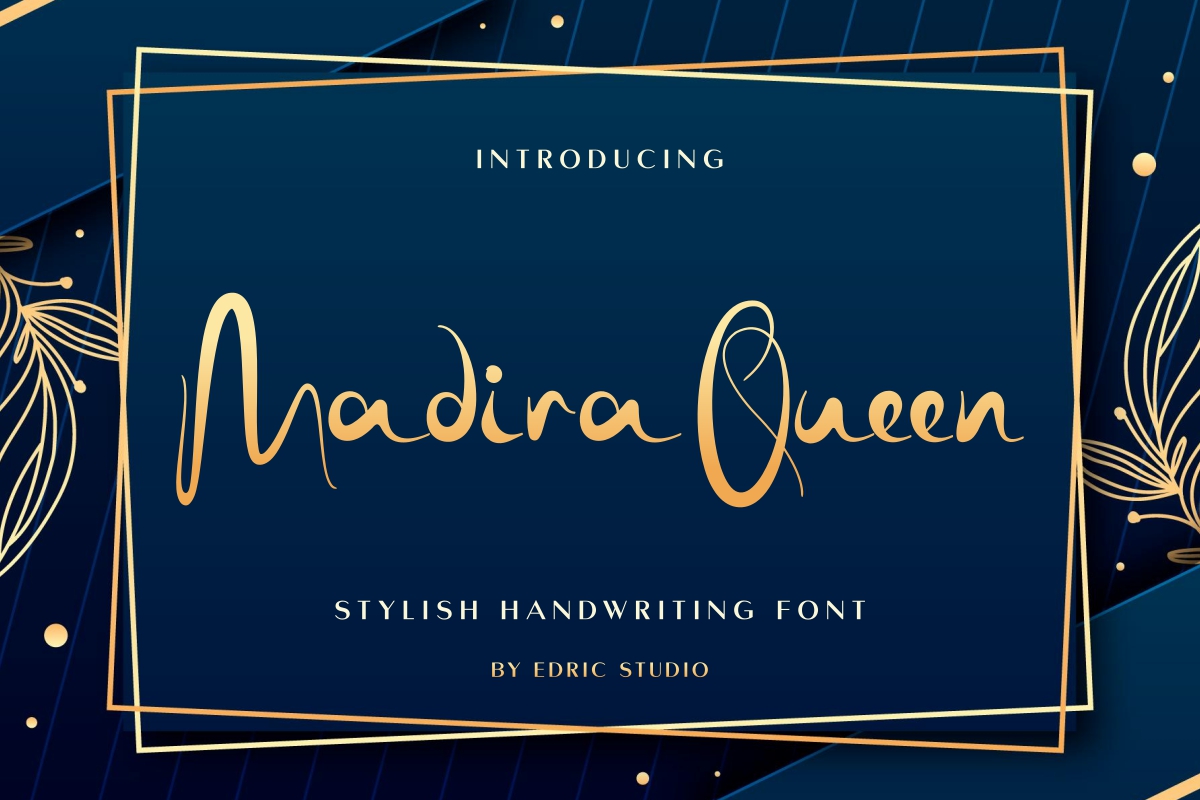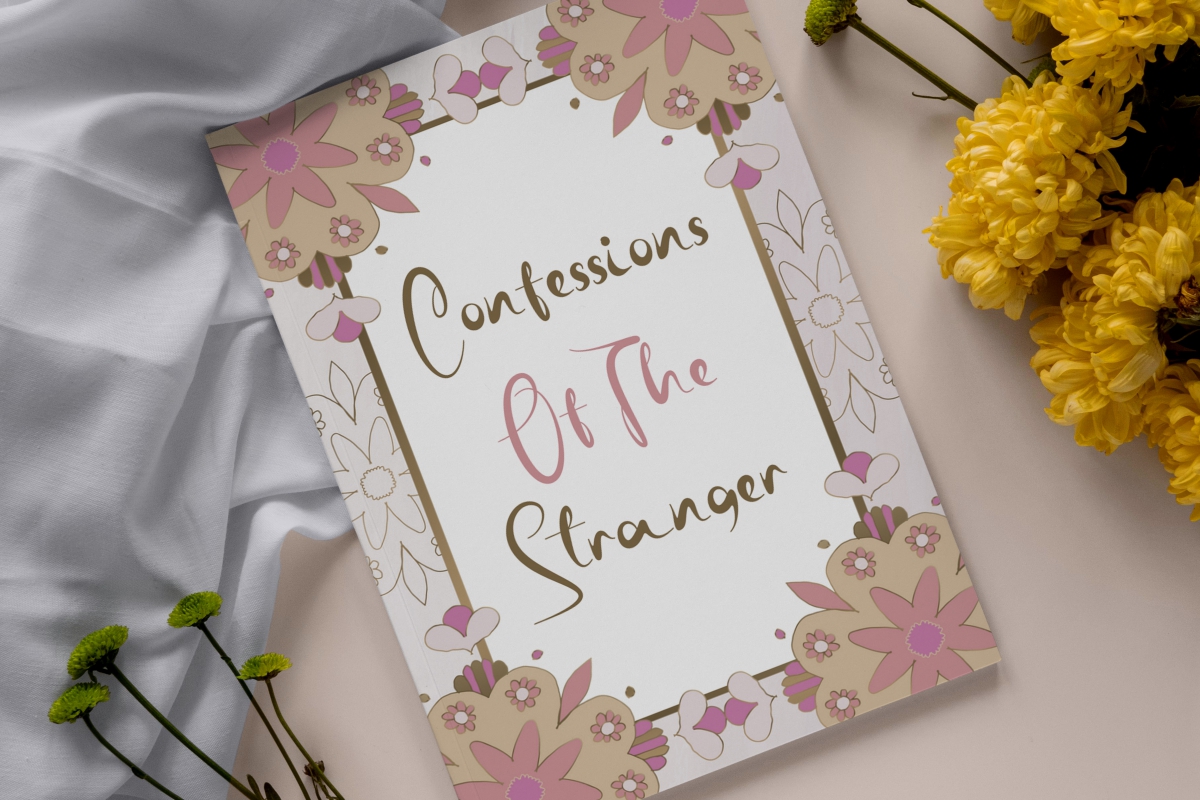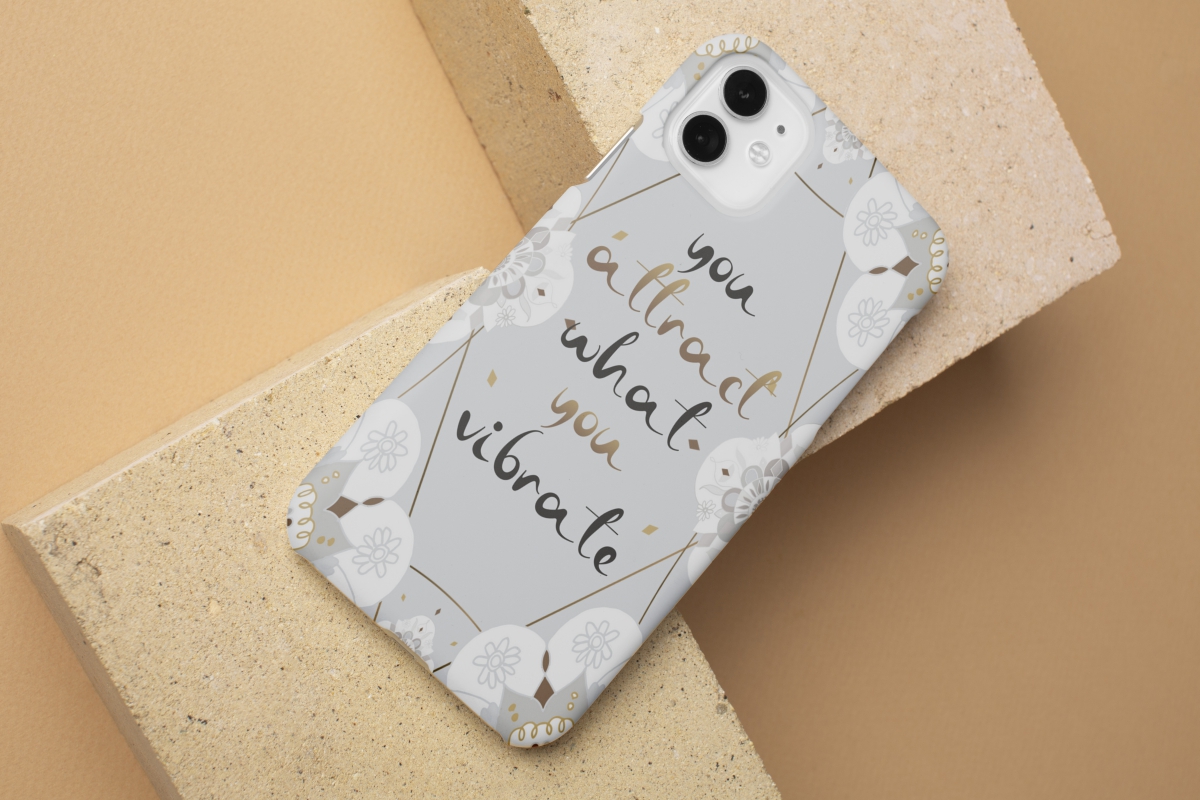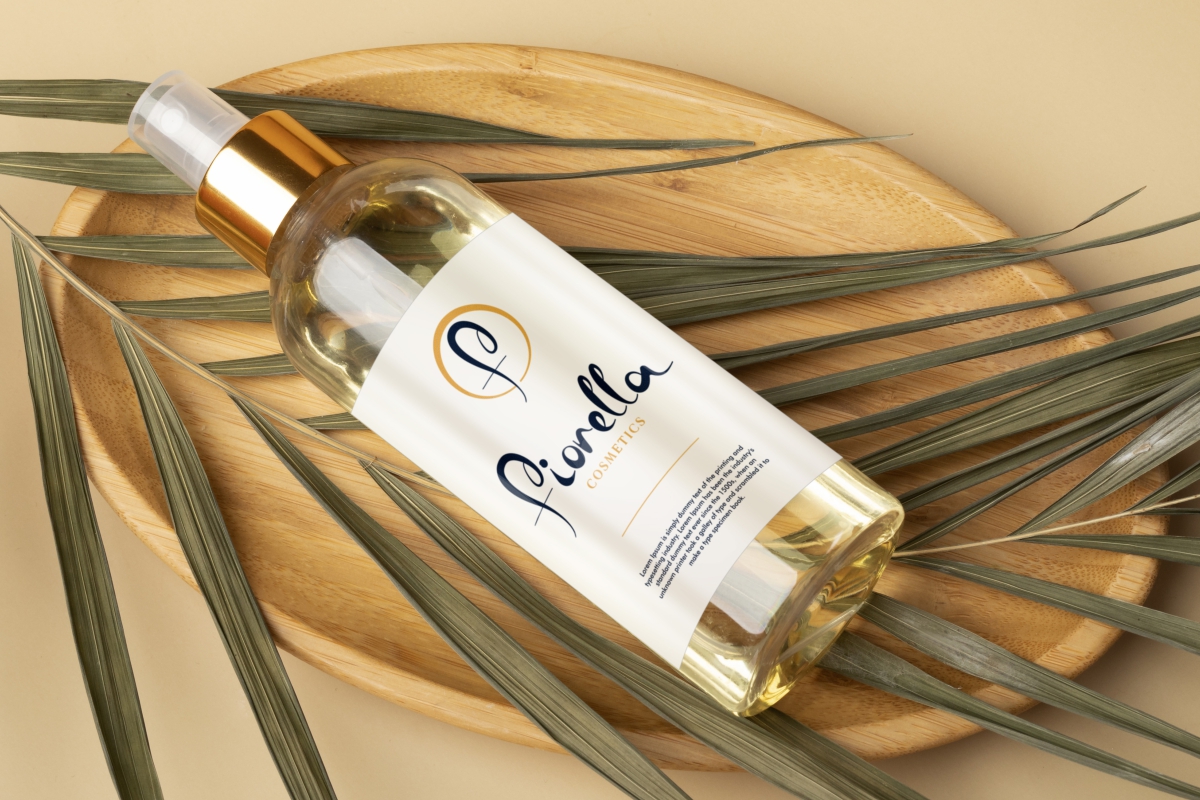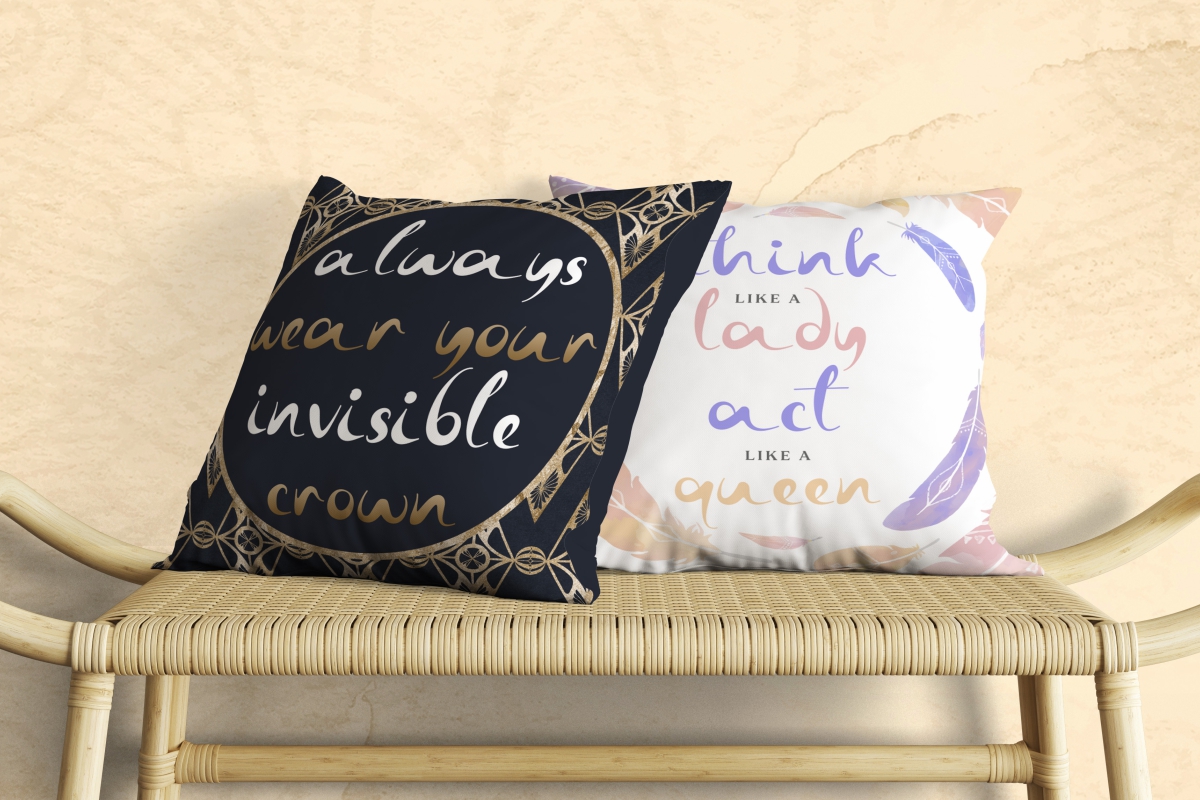
Madira Queen Font
Madira Queen Script Font
It’s an elegant handwriting font with classy look, exclusively created by EdricStudio. This font has a balanced bold and thin lines that makes it look stunning and is suitable for many industries, such as, accessories, art gallery, boutique, cosmetic, florist, furniture, perfume, wedding organizer, publishing, and anything that requires a touch that brings elegance.
Madira Queen Font comes with a full set of Uppercase and Lowercase Basic Characters, Number, large range of Punctuation and Symbol. It has a stunning characters set, perfectly managed with well spaced and kerning. Madira Queen Font will be great for any projects (with extended license) including : art frame, brand logo, custom case phone, invitations, labels, mockup design, quotes, screen printing, stationery, title, etc.